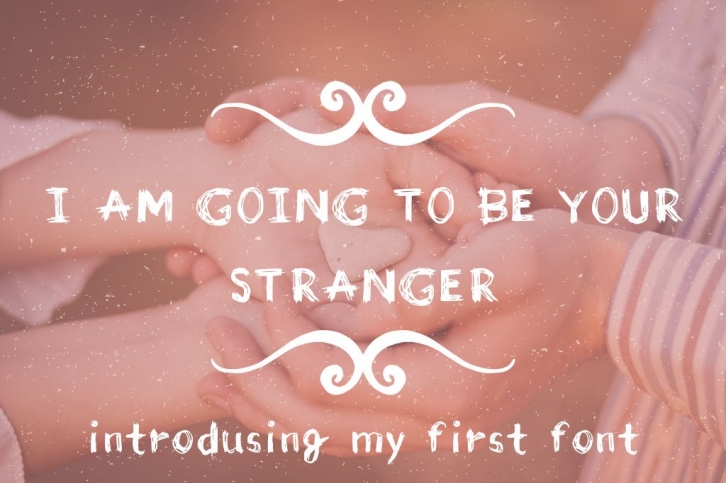
Hello my dears! I feel so nervous right now. This is my first font, which i want to share with you.
Its fresh, and scetchy and artistic. It will help you to add a bit of grungy touch to your artworks.